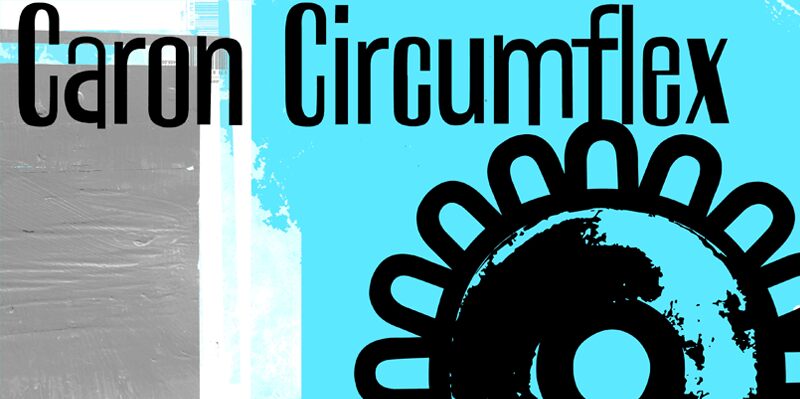
Caron Circumflex
Caron Circumflex emerges as a playful yet assertive display font that skillfully combines whimsy with impact. Created by the imaginative junkohanhero, this font is a standout choice for projects requiring a touch of humor infused with strong visual presence. Its comic style exudes a casual, approachable vibe, perfect for engaging audiences in less formal contexts.
The extra-condensed width of Caron Circumflex allows for creative space management without sacrificing readability. Each letter boasts clear lines and distinct shapes, ensuring that messages are not only seen but also felt. The bold character forms are reminiscent of classic comic book lettering, making it an excellent pick for storytelling in graphic novels or animation.
This font's dynamic personality is versatile enough to be featured in branding, product packaging, and digital media where a blend of fun and functionality is desired. With its unique aesthetic appeal and striking style, Caron Circumflex offers designers an inventive typographic tool to make their creations pop.
The extra-condensed width of Caron Circumflex allows for creative space management without sacrificing readability. Each letter boasts clear lines and distinct shapes, ensuring that messages are not only seen but also felt. The bold character forms are reminiscent of classic comic book lettering, making it an excellent pick for storytelling in graphic novels or animation.
This font's dynamic personality is versatile enough to be featured in branding, product packaging, and digital media where a blend of fun and functionality is desired. With its unique aesthetic appeal and striking style, Caron Circumflex offers designers an inventive typographic tool to make their creations pop.